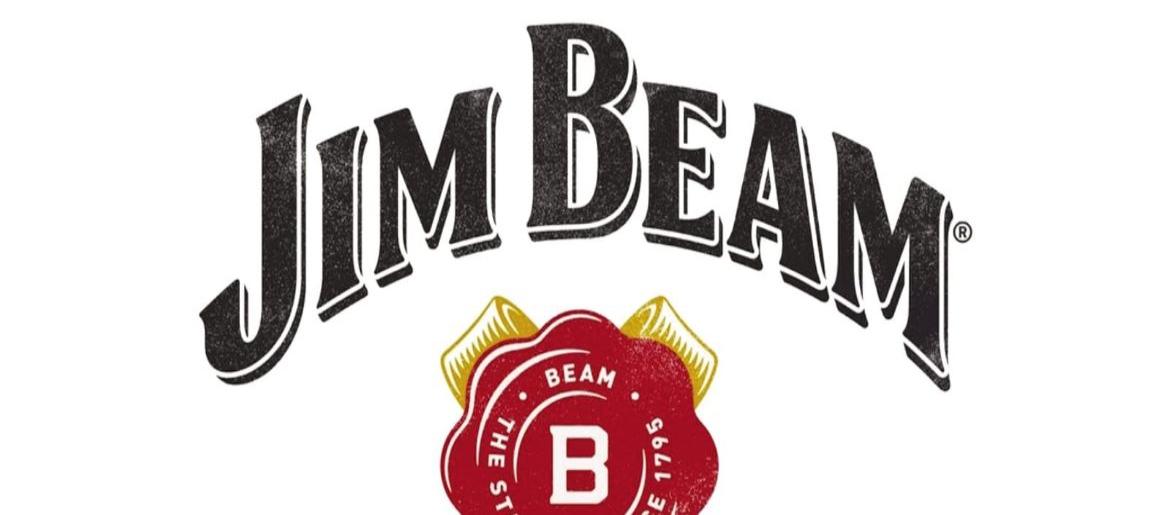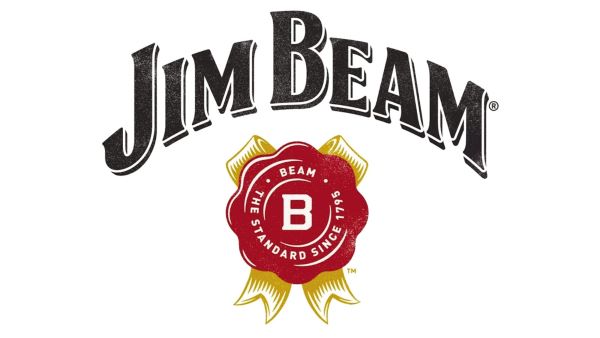
Jim Beam Font
What Font is Jim Beam?
The Jim Beam Font used in the iconic logo of the whiskey brand is a custom-designed typeface, crafted to complement its heritage and bold character. For practical design purposes, the typeface Trooper Roman comes very close to the original in style — strong, serif-driven, with a classic feel. Because the exact original is proprietary, we’ve found a free alternative font that closely mirrors the same sturdy serifs, traditional presence, and bold weight — ideal for recreating the nostalgic, refined look of the Jim Beam branding.
About Jim Beam
Jim Beam is an American bourbon whiskey brand with deep roots in Kentucky, tracing its heritage back to the late 18th century. Over generations, it has become one of the most recognizable whiskey names in the world — known for its smooth taste, robust character, and proud tradition of craftsmanship. The branding—including the logo typography—reflects this legacy: bold, trustworthy, and timeless.